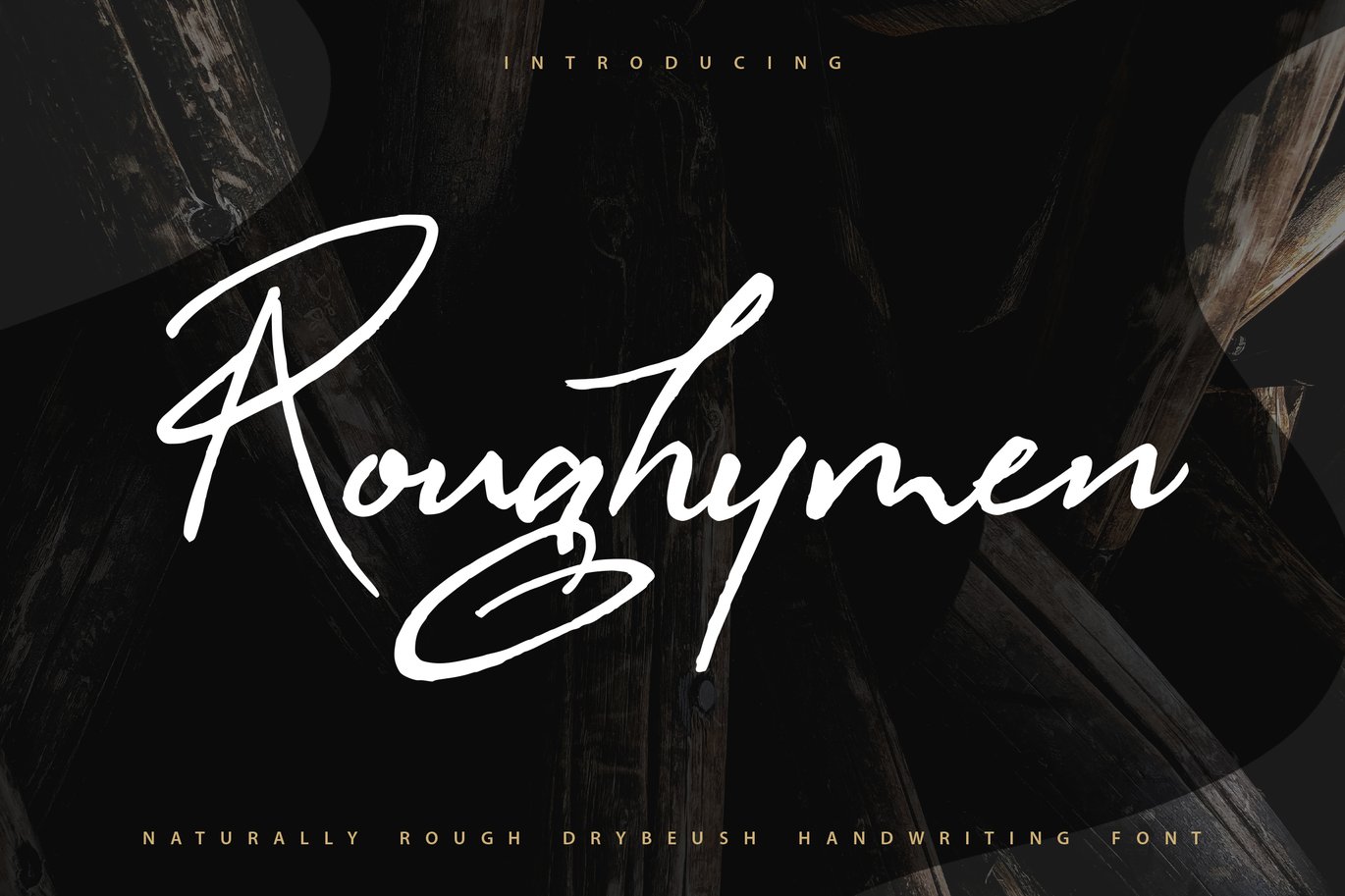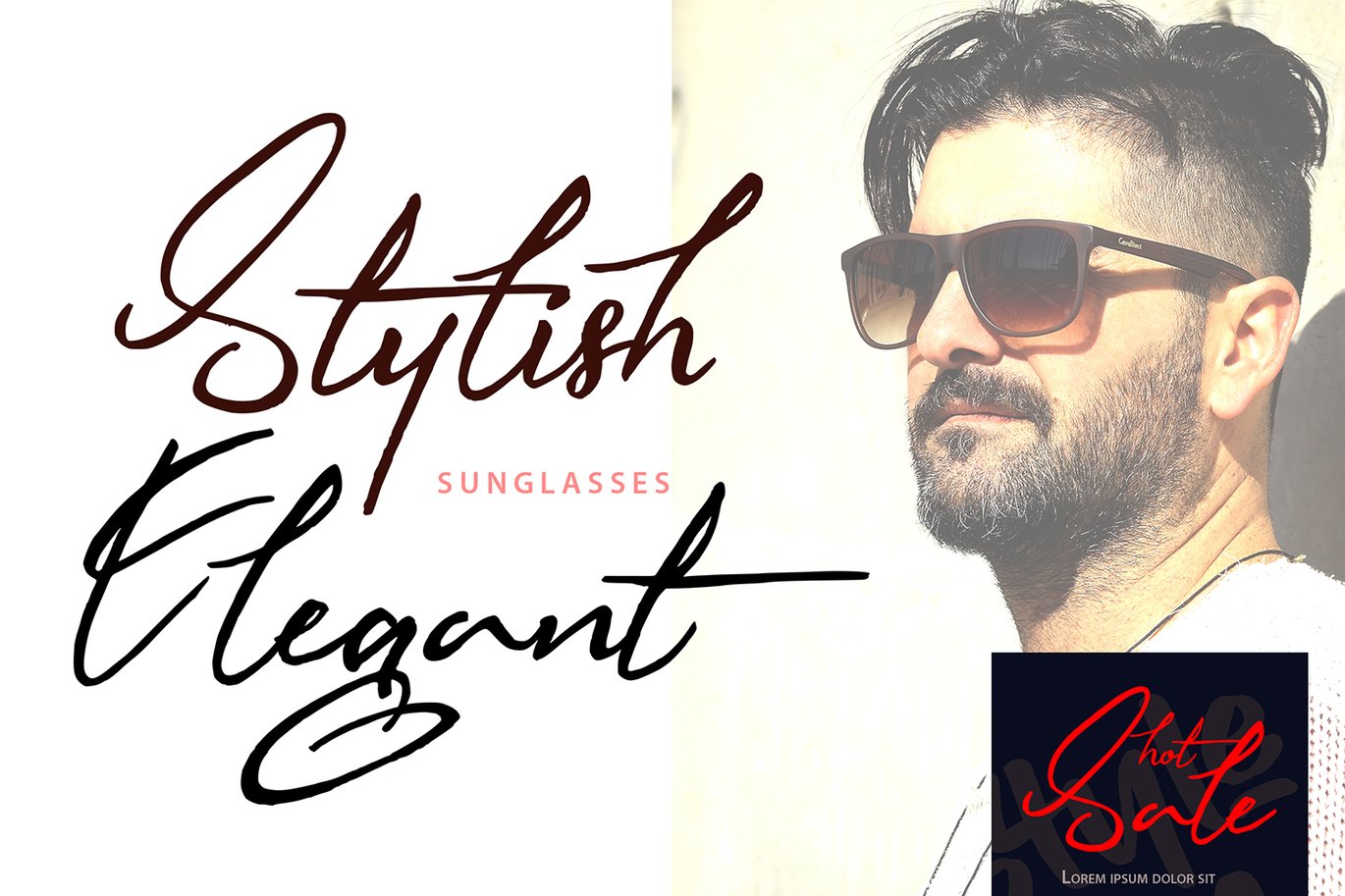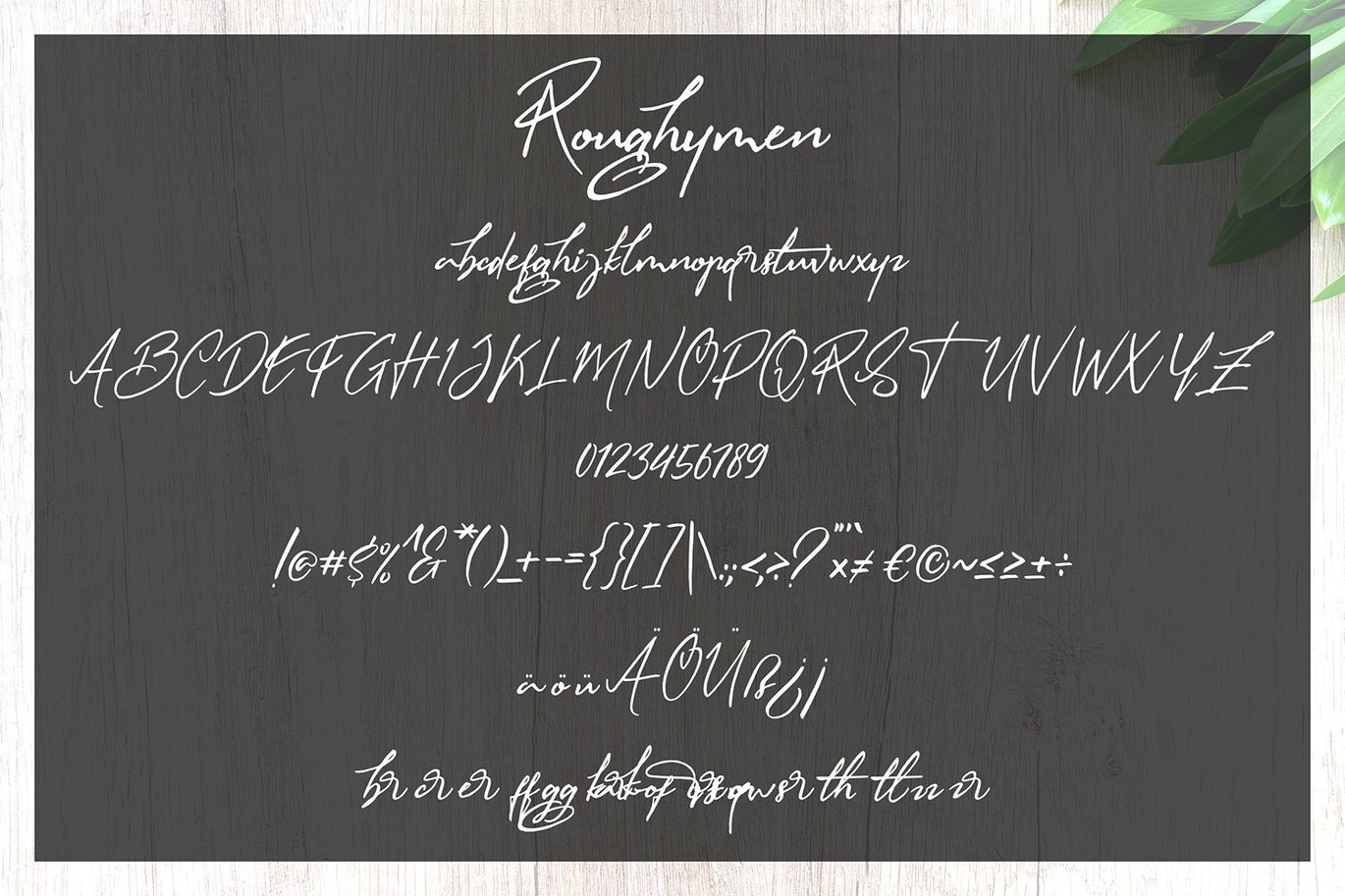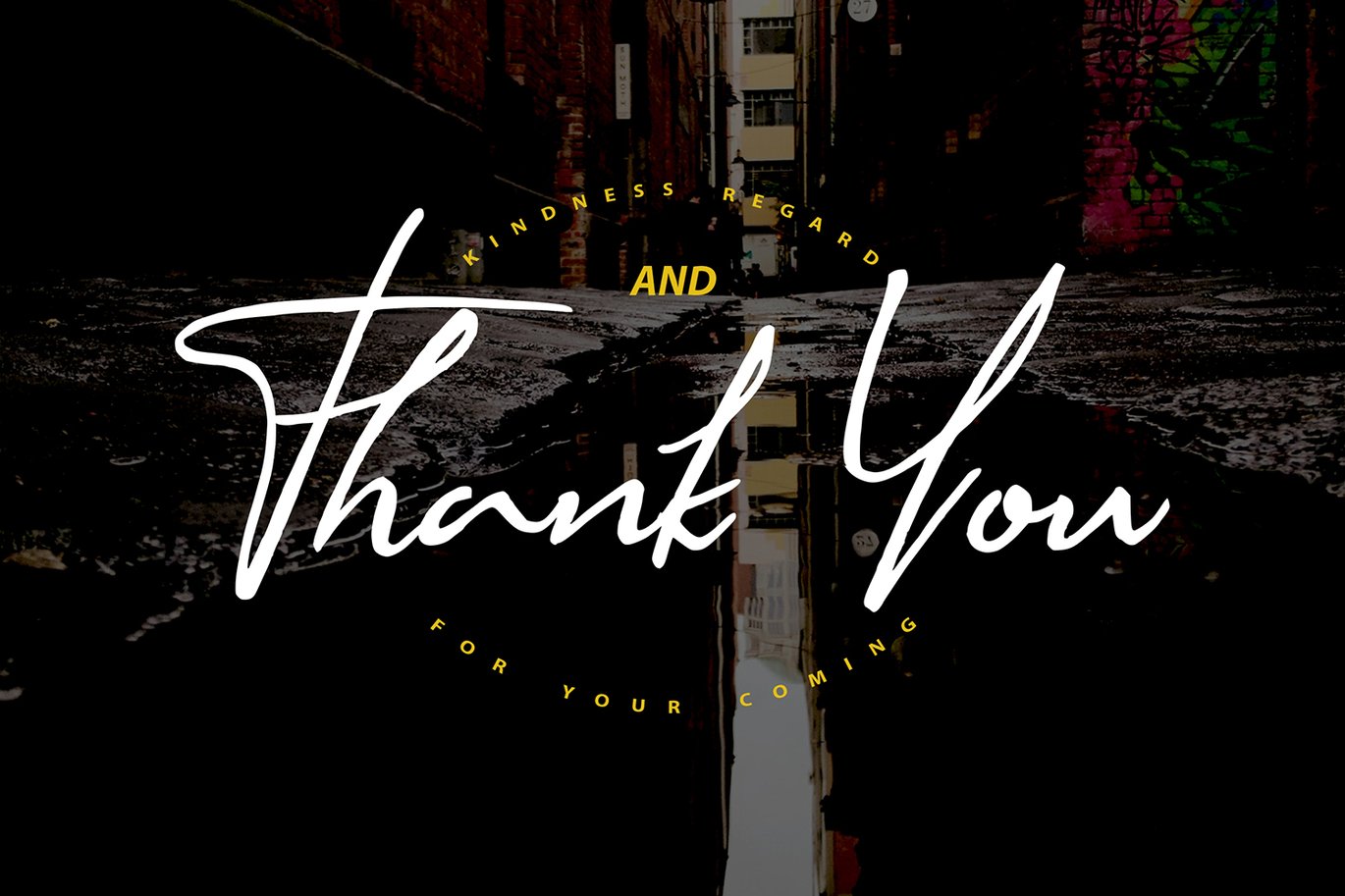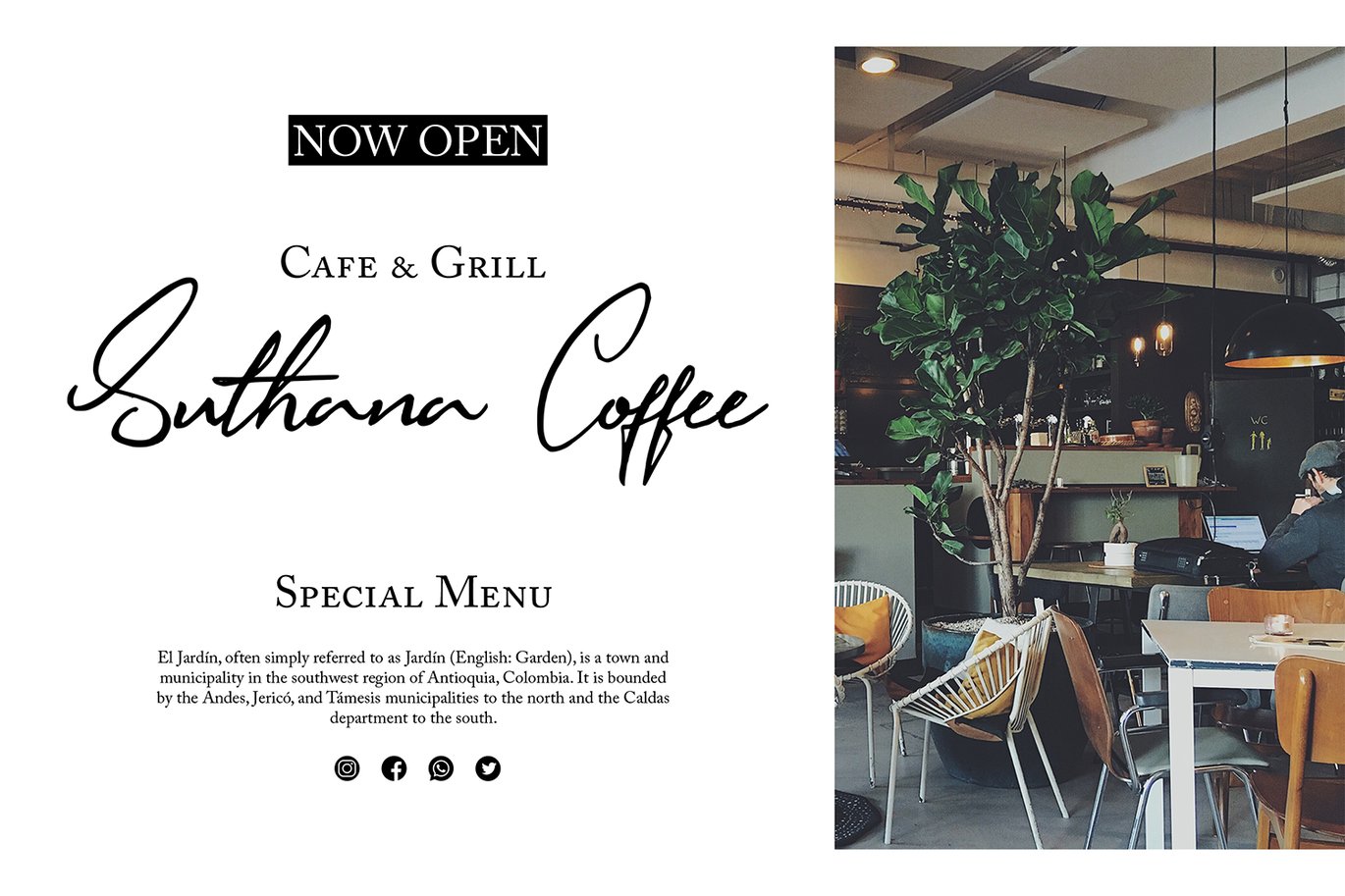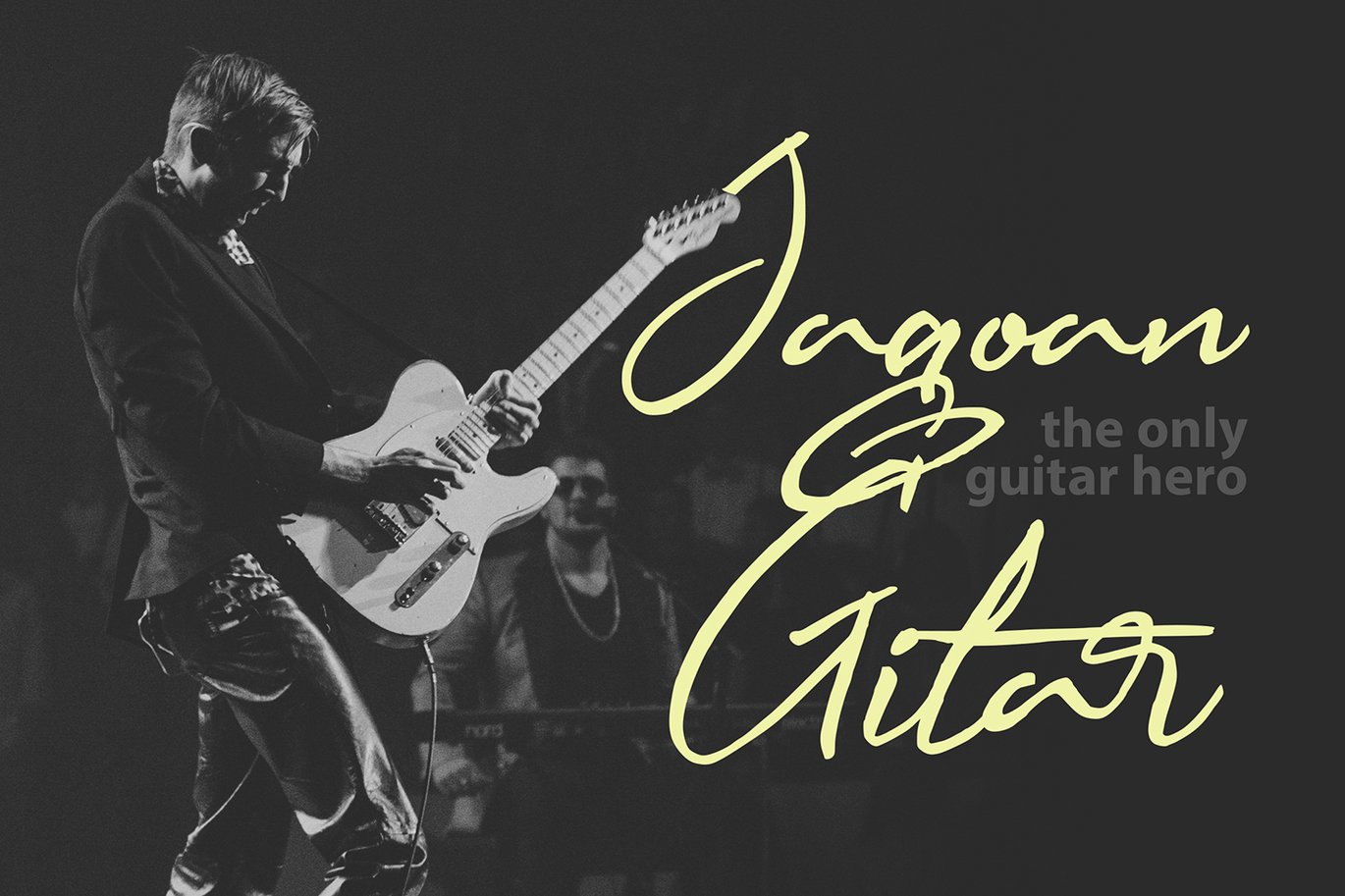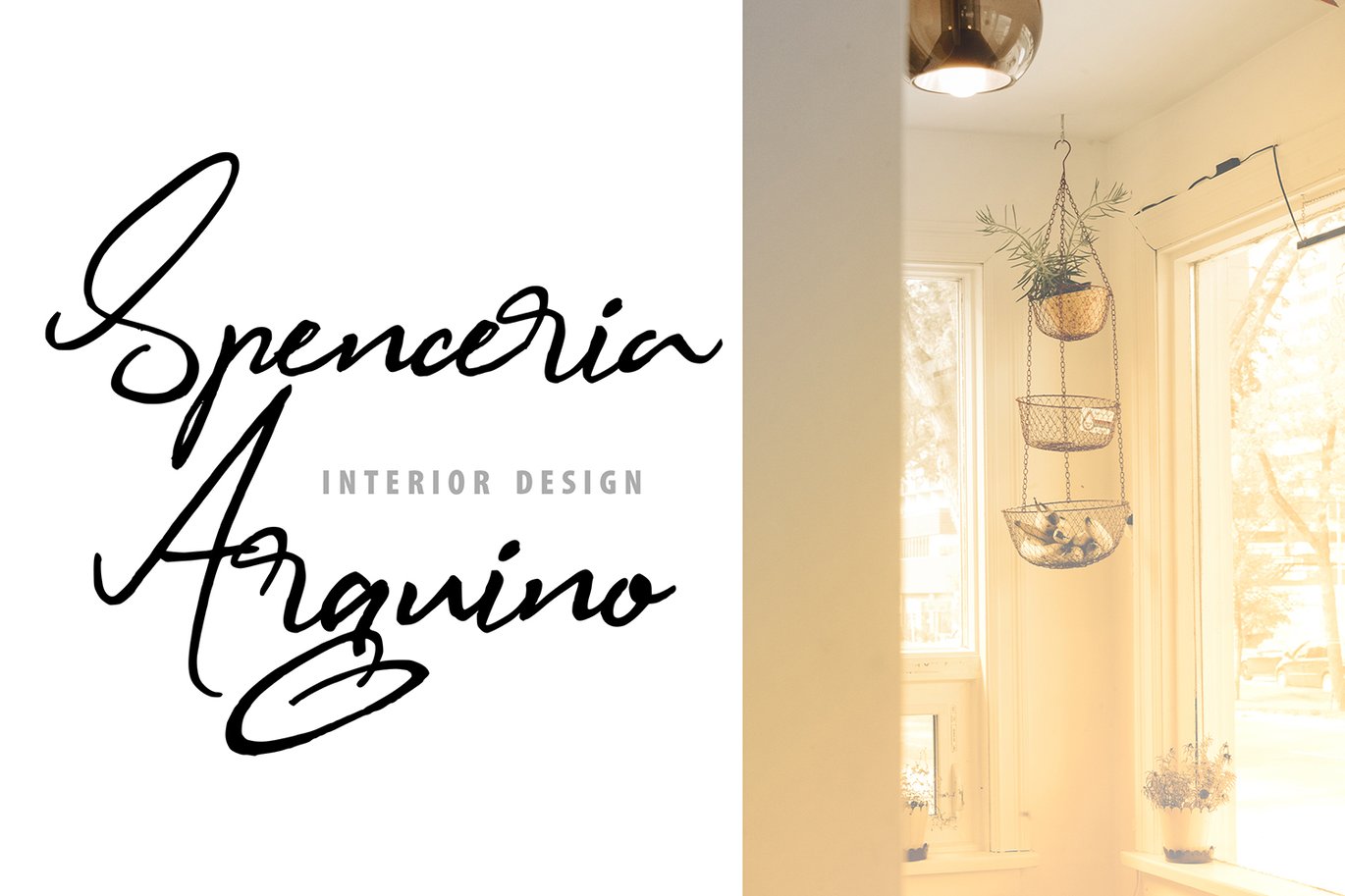
Roughymen | Rough Drybrush Handwriting Font
Roughymen | Rough Drybrush Handwriting Font with a calligraphy style, So beautiful on invitation like greeting cards, branding materials, business cards, quotes, posters, and more!